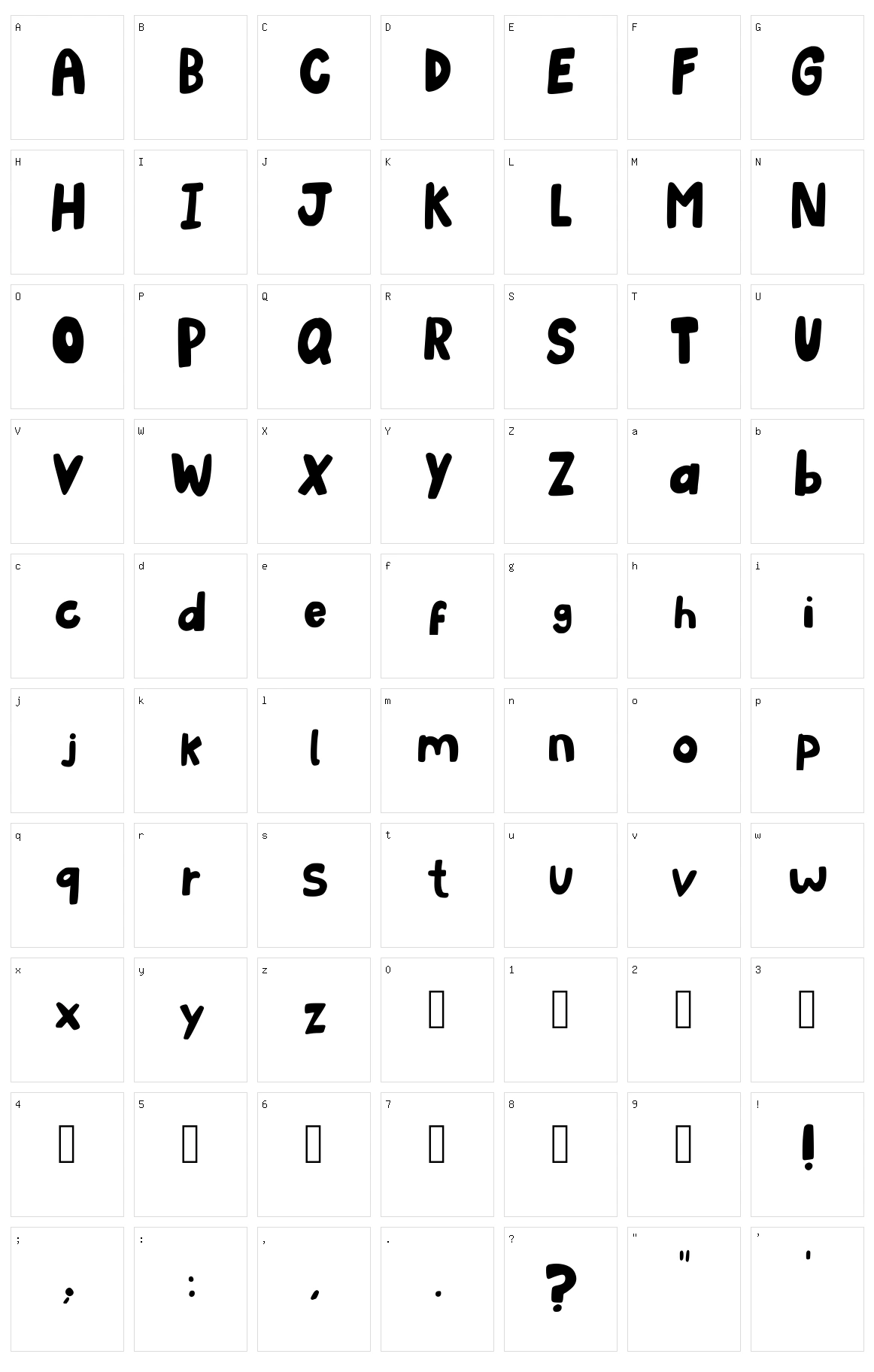
The free font Myfontybb is carefully designed by Laura L?pez, showcasing a thoughtful balance of creativity and usability and falls under the Script font style. When you download the ZIP file, it contains only 10.34 KB of font files, making it lightweight and quick to download. Please review the license details below to understand permitted usage and distribution rights. If license information is not available, we recommend using this font for personal projects only or contacting the author directly for commercial usage permissions.